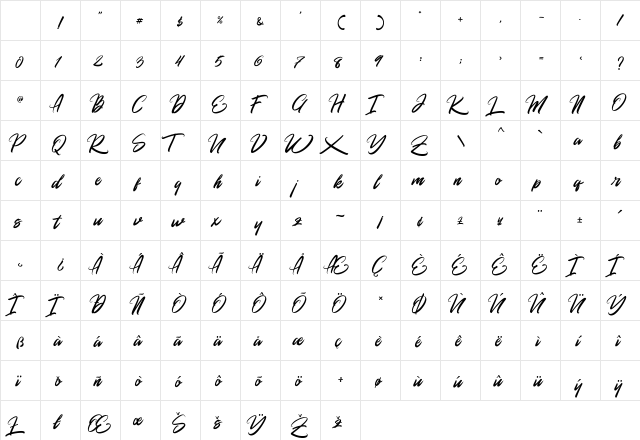
Complete Rommantis Regular glyph index. Displaying only characters natively supported by Rommantis Regular font.
Rommantis is a composed and adaptable typeface that performs quietly and consistently across a wide range of design contexts.